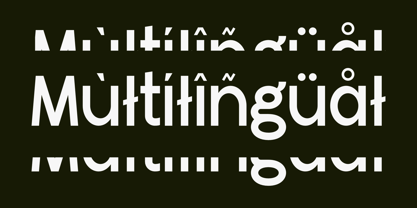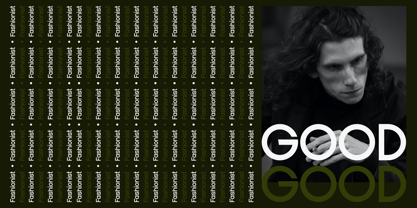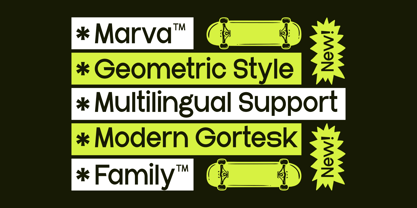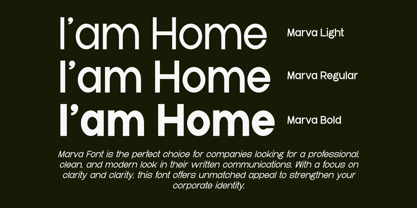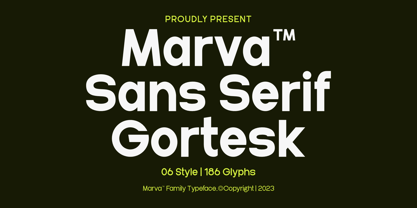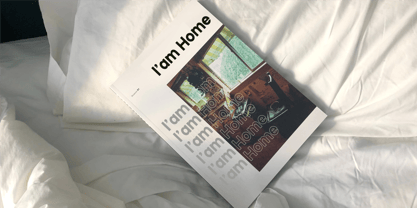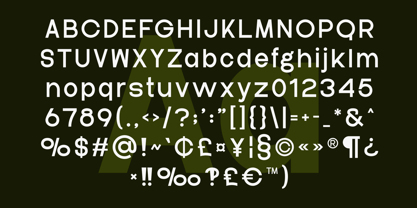
Marva
by Marvadesign
The Marva Font Family was designed by Febrie Setiawan and published by Marvadesign. Marva contains 6 styles and family package options. More about this family
Introducing Marva is a modern sans-serif typeface with a strong geometric structure, designed to offer a sleek, professional, and contemporary aesthetic. Its grotesque style combines boldness with clarity, making it an excellent choice for various design applications, from branding to editorial content.
With six distinct styles and a total of 186 glyphs, Marva provides versatility for designers who require flexibility in typography. It supports multilingual characters, ensuring global usability while maintaining a refined, balanced appearance across different languages. The font family includes various weights, such as Light, Regular, and Bold, allowing for dynamic typographic hierarchy and contrast.
One of Marva's defining characteristics is its sharp yet approachable letterforms, which exude modernity while retaining excellent readability. The geometric inspiration behind its design gives it a structured, contemporary look, making it suitable for corporate identity, digital interfaces, advertising, and editorial projects.
Designed with attention to detail, Marva strikes a balance between minimalism and impact. Its smooth curves and well-proportioned letters contribute to a seamless reading experience, while its bold weights deliver strong visual presence when needed. Whether used for headlines, logos, or body text, Marva ensures a clean and professional typographic experience.